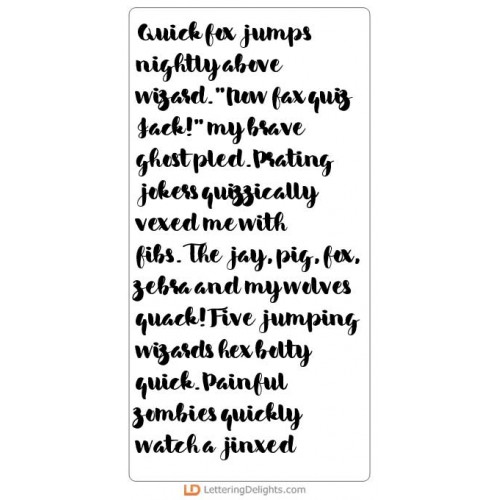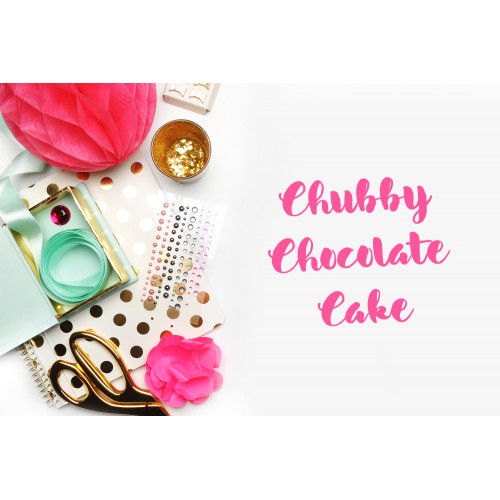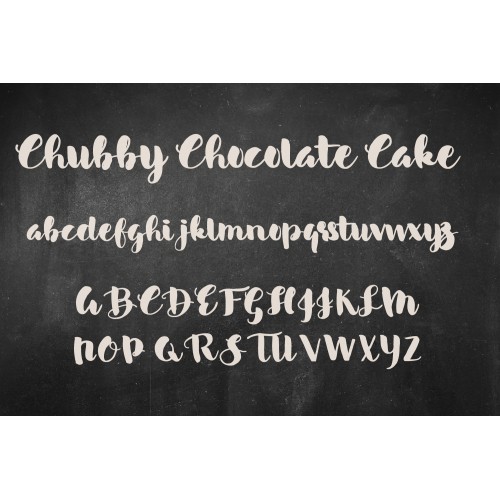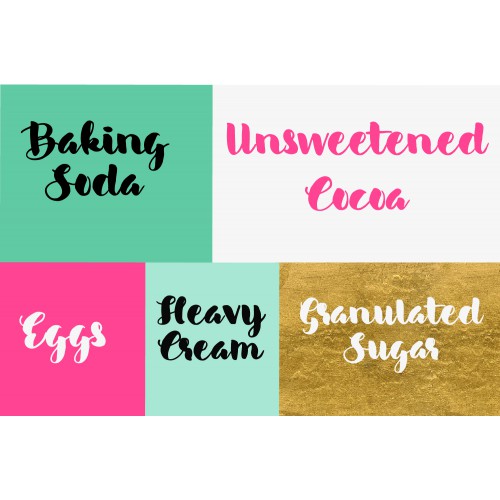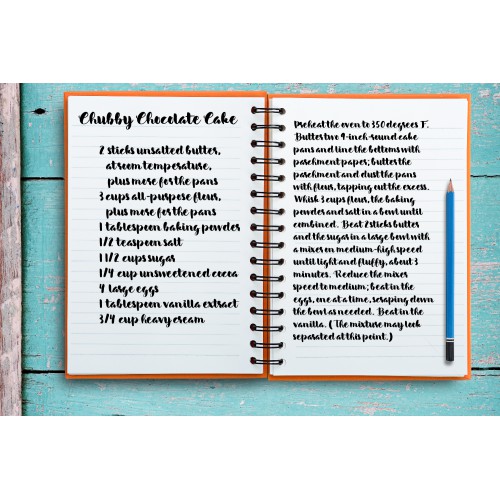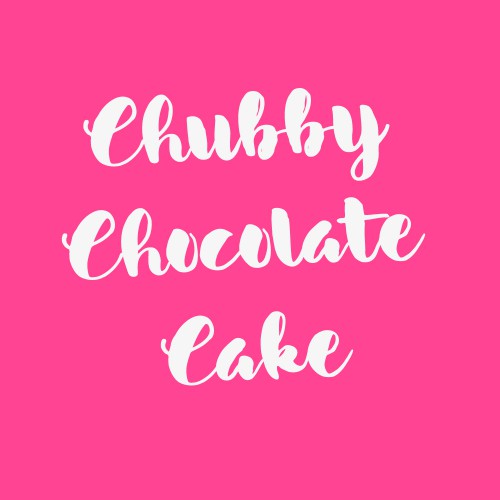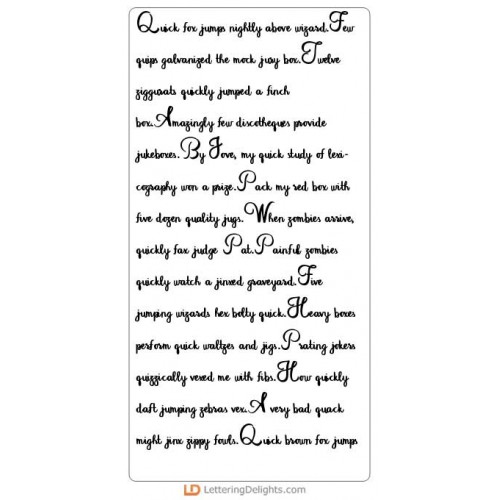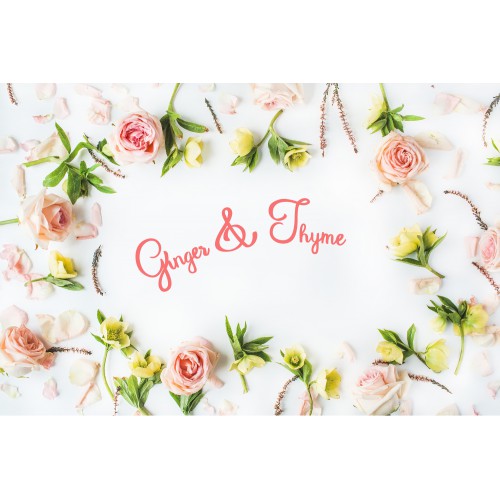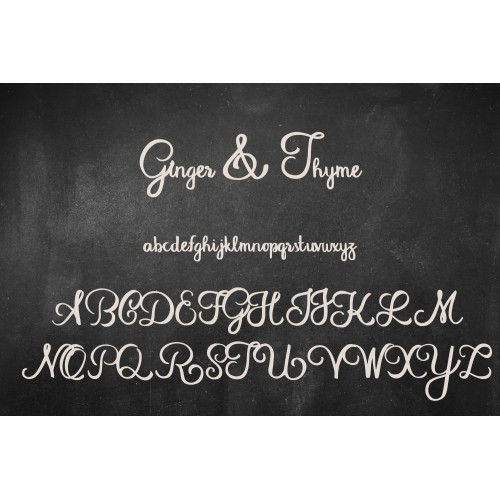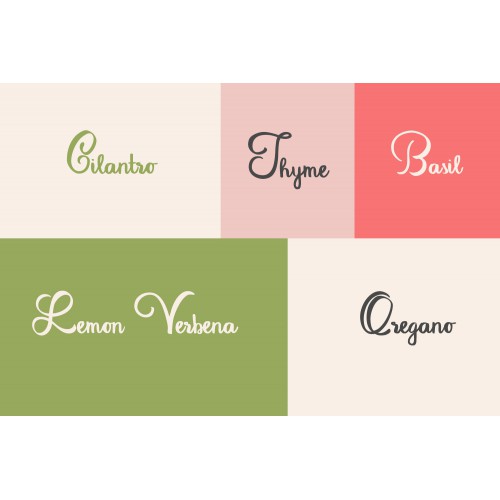
2. KB Premium Scripts - Font Bundle
KB Chubby Chocolate Cake - FN
This beautiful new script has extreme thicks and thins...
KB Ginger and Thyme - FN
KB Honeybuns - FN
This hand-written script has exaggerated loops...
KB Kissing Coconuts - FN
This quasi-script is part script, part print and very fun and whimsical...
KB Lemon and Honey - FN
This beautiful new script has a very ornate hand-printed uppercase...
KB Peaches and Cream - FN
This beautiful and upright script has strong loops...
KB Sparkles - FN
This bold script is heavy enough to cut well on a cutting machine...
KB Sparkles Glimmer - FN
This glimmer and sparkle version of KB Sparkles has tiny sparkles throughout. Get KB Sparkles if you..
KB Strawberry Shortcake - FN
This fun and fancy formal script has a flourished uppercase and a lowercase without. No real upperca..
KB Watermelon Juice - FN
This beautiful new script font has no true uppercase. Rather, you have a choice of two lowercases so..